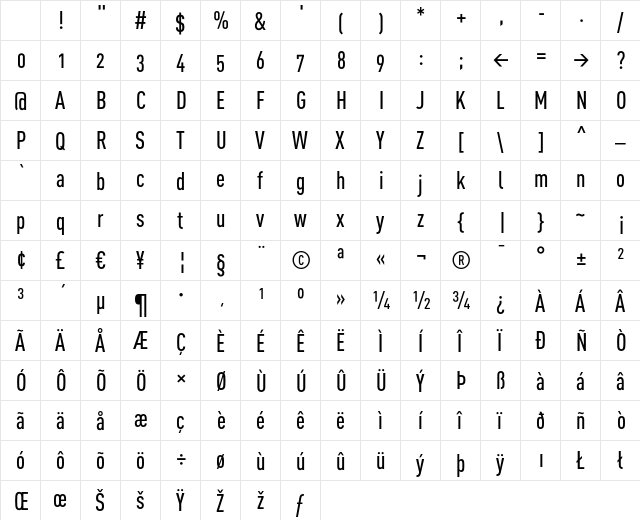
Complete DINCond-MediumAlternate Regular glyph index. Displaying only characters natively supported by DINCond-MediumAlternate Regular font.
DINCond-MediumAlternate is a composed and adaptable typeface that performs quietly and consistently across a wide range of design contexts. Its narrow stance lets it pack a punch even in space-constrained designs.